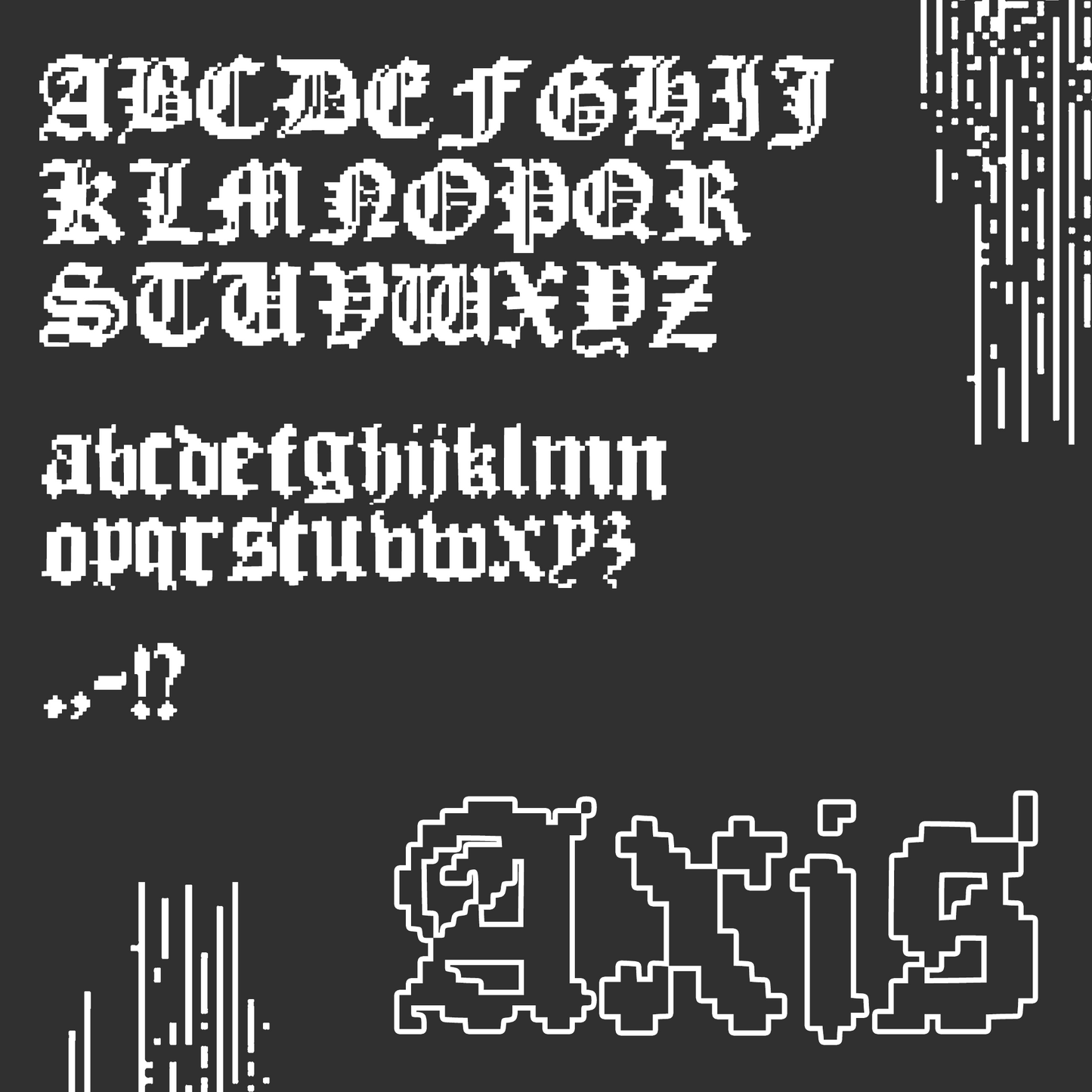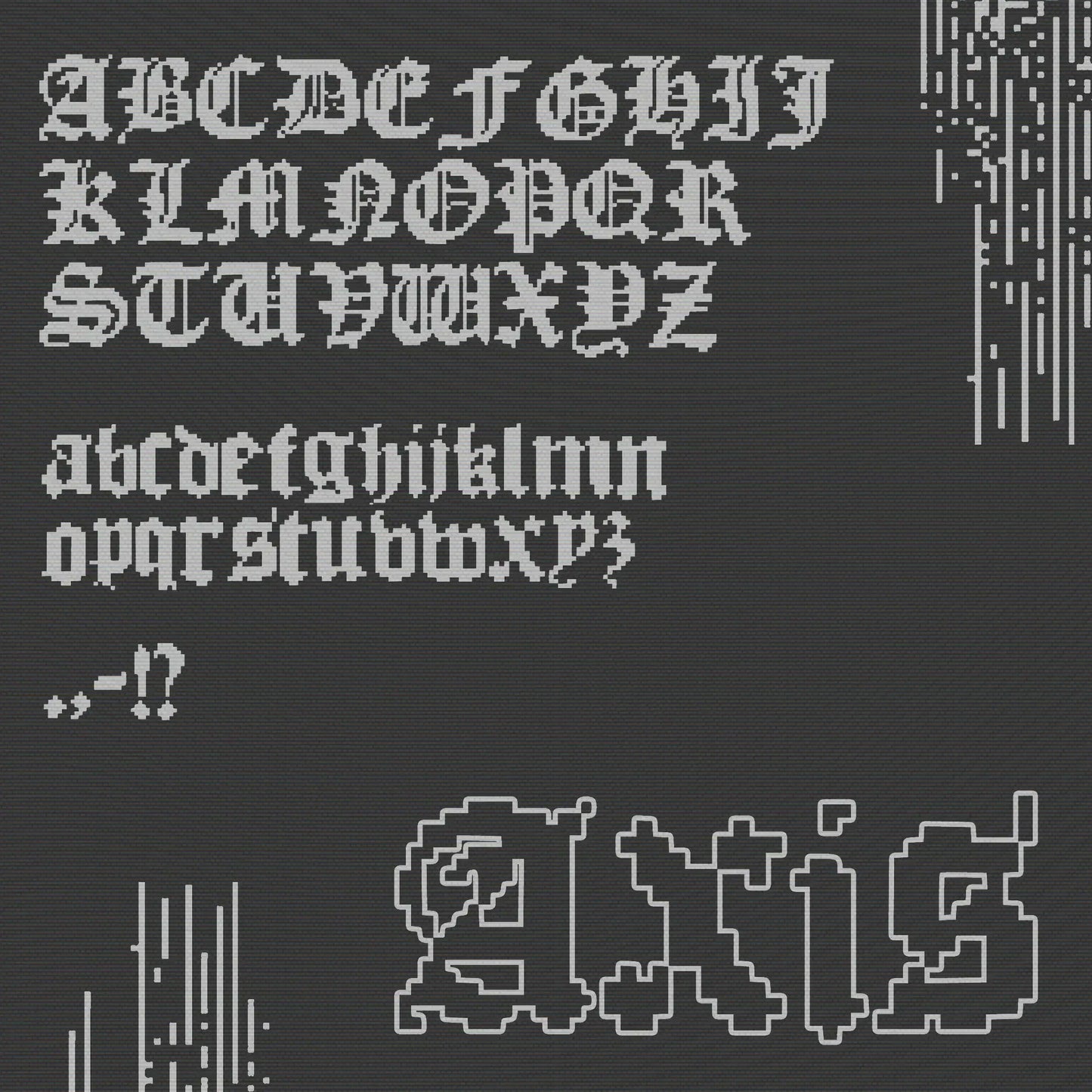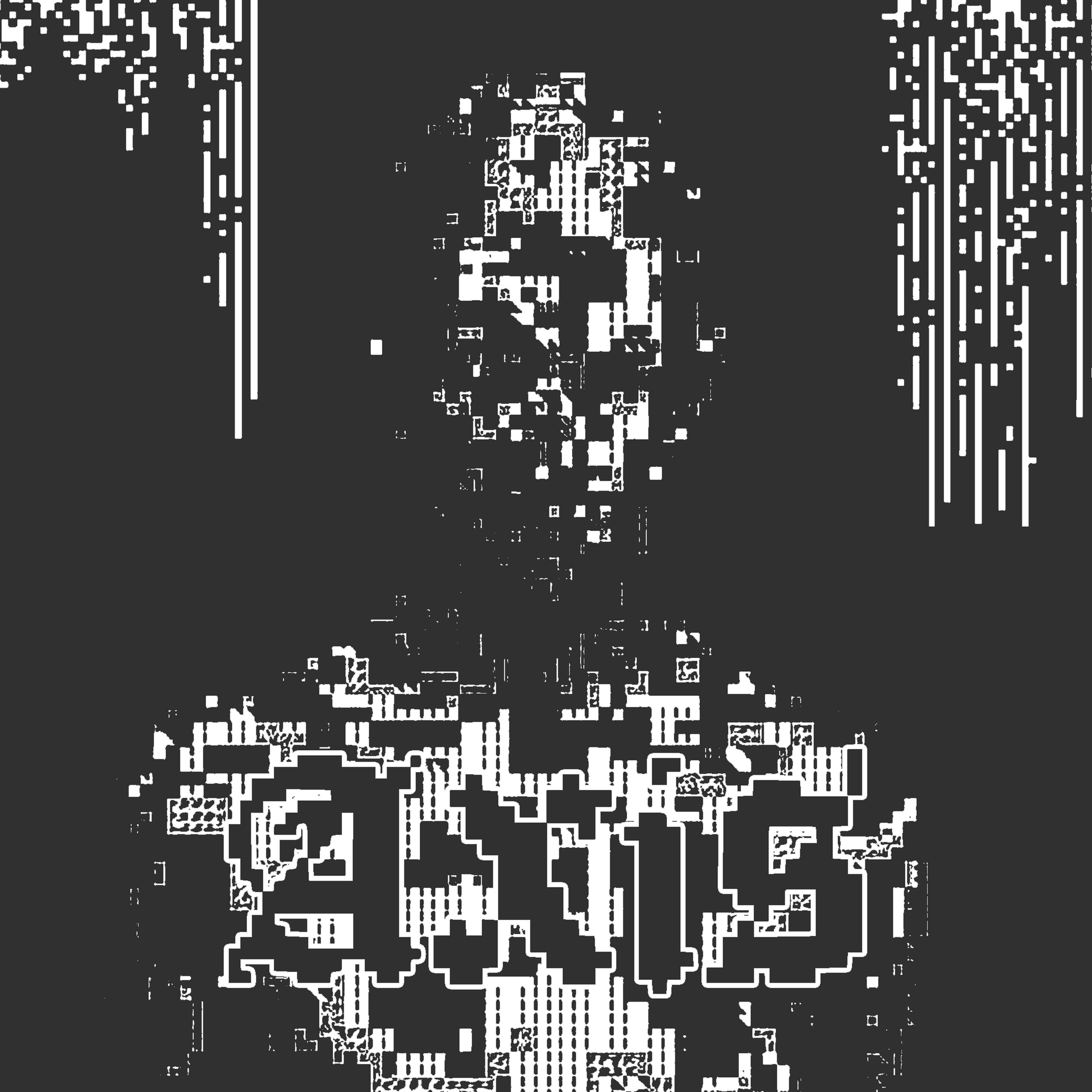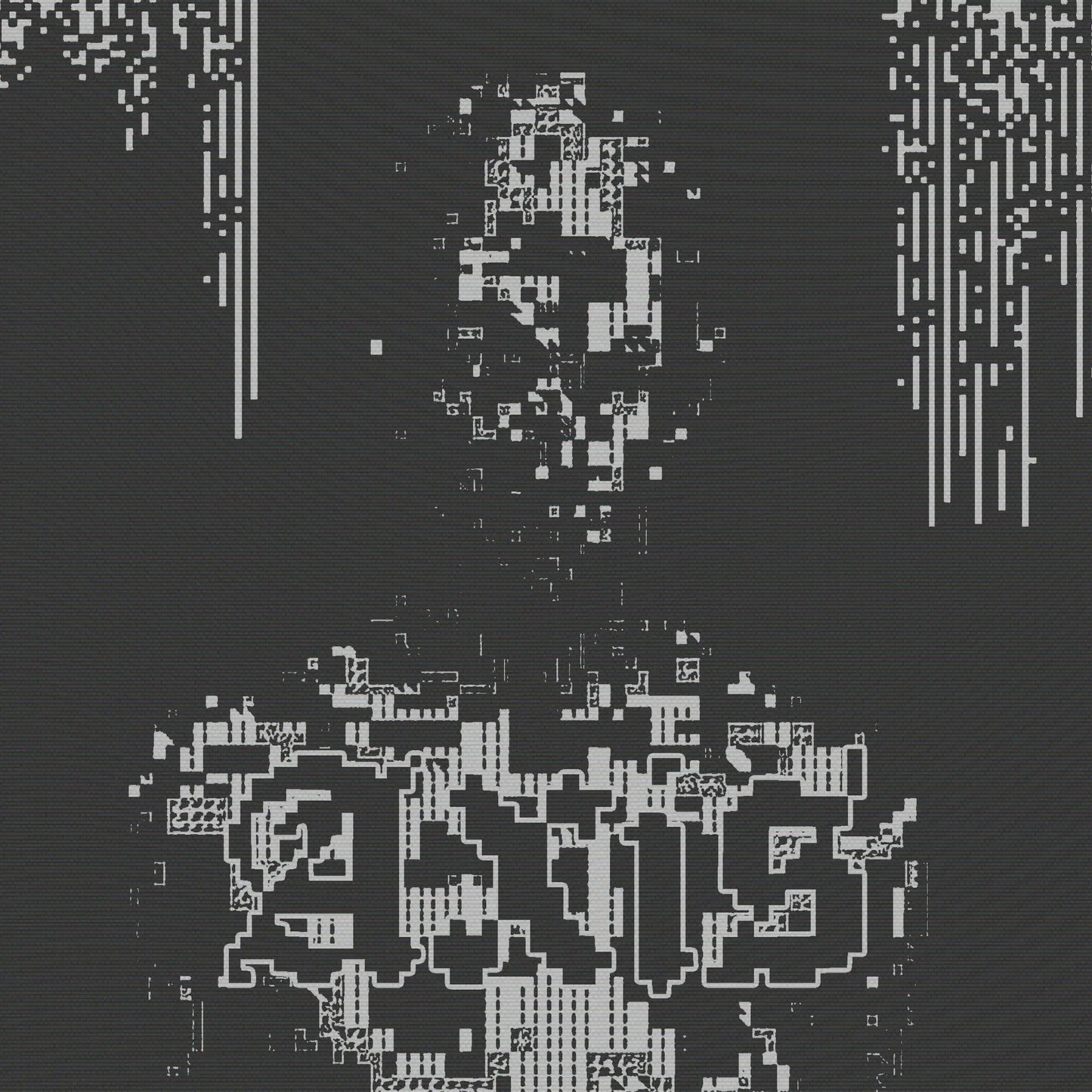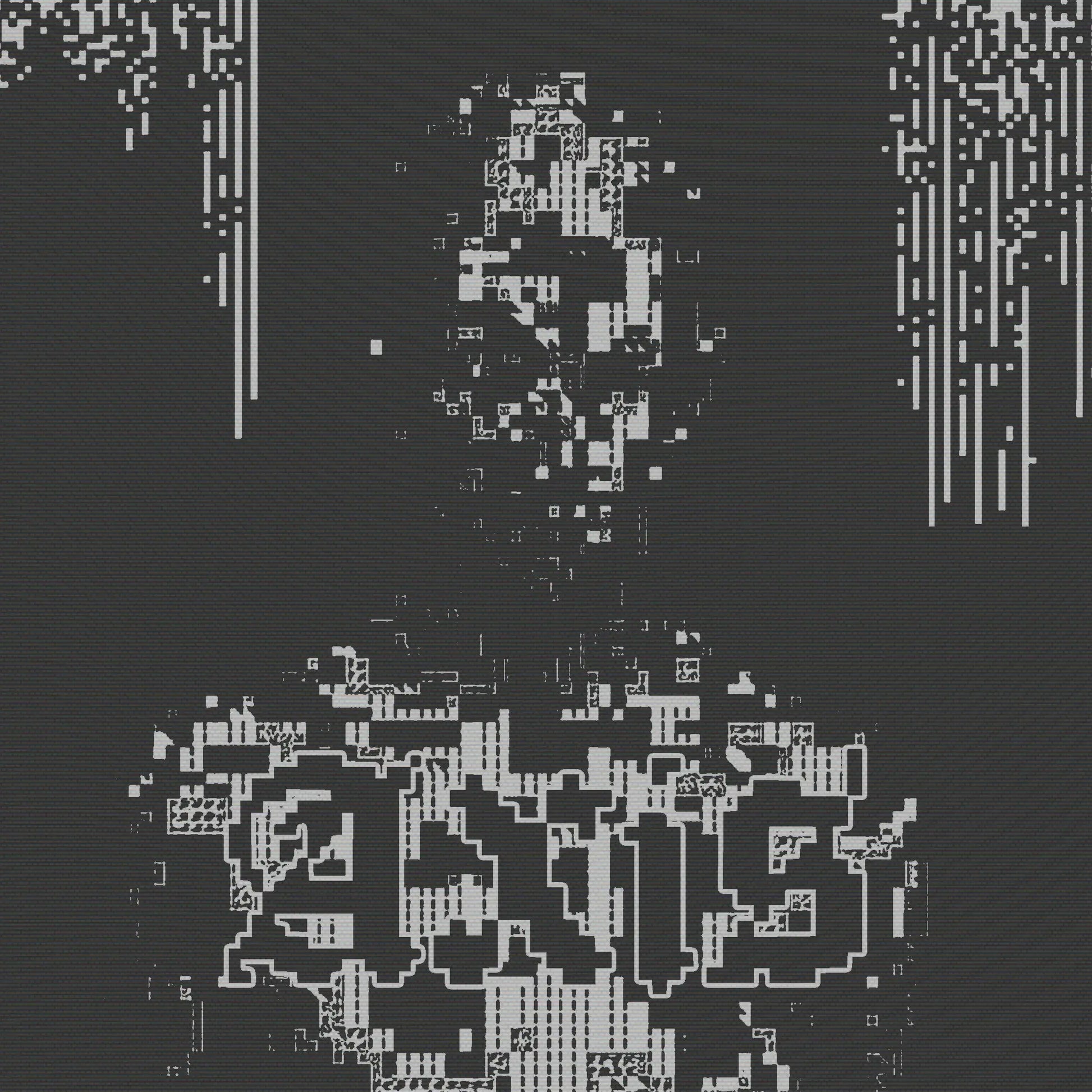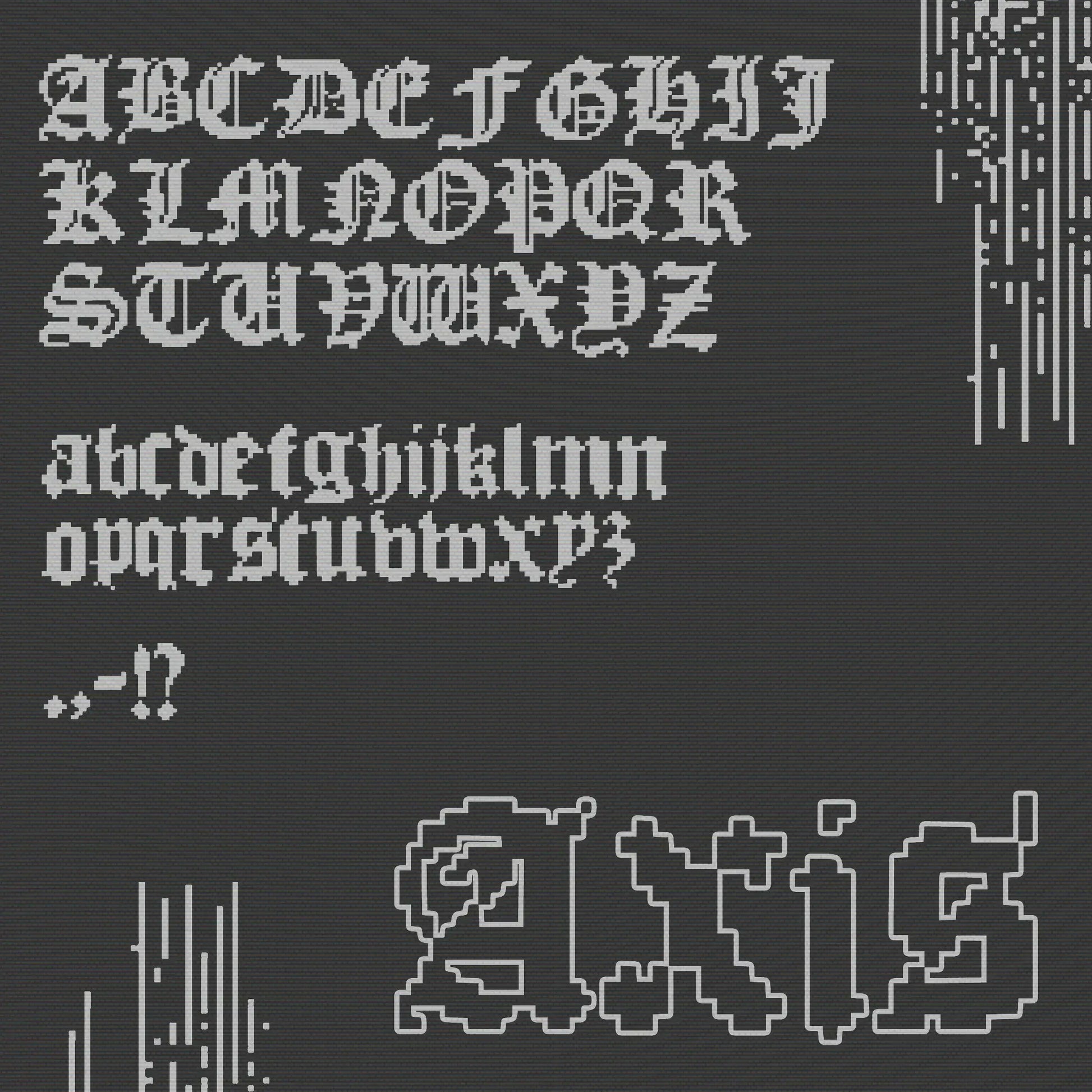
Axis Typeface
Axis Typeface is a bold, modern display font designed for clothing brands, streetwear labels, and graphic designers who want strong, geometric typography with an urban edge.